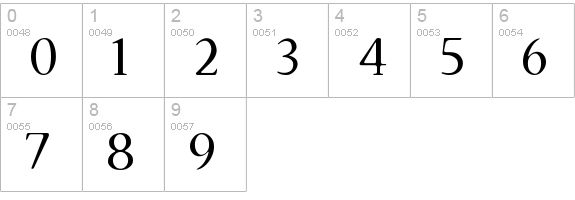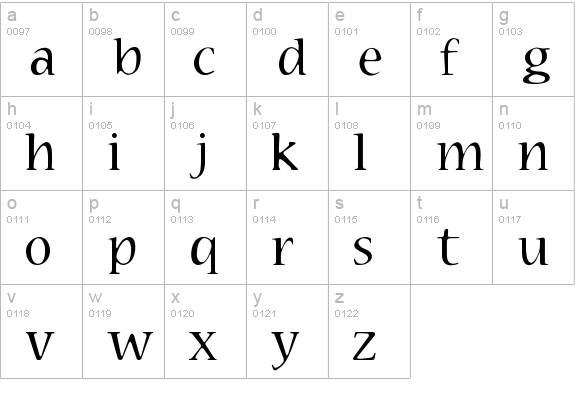
Introducing Technomage, a remarkable font that seamlessly blends the futuristic allure of technology with the enchantment of magic. This one-of-a-kind typeface brings forth a captivating fusion of sleek, modern lines and intricate mystical elements, making it a true masterpiece in the world of typography. Technomage effortlessly captures the essence of a digital era where science and sorcery intertwine, creating a visual experience that is both captivating and awe-inspiring. Its bold and distinctive letterforms evoke a sense of power and innovation, while the subtle curves and intricate details add a touch of enchantment and mystery. This versatile font is perfect for a wide range of creative projects. Whether you're designing a cutting-edge logo, crafting a captivating headline, or developing an immersive user interface, Technomage will elevate your work to new heights. Its unique blend of modern aesthetics and magical charm will leave a lasting impression on your audience. What sets Technomage apart is not only its stunning design but also its accessibility. We believe that great design should be available to all, which is why Technomage is freely available to download at FontsMarket.com. This means that you can unleash the power of this extraordinary font without any restrictions or limitations. With Technomage, creativity knows no bounds. So, step into a world where technology and magic coexist harmoniously with Technomage. Let this font be your guide as you embark on a journey of creativity and innovation. Download it today from FontsMarket.com and experience the spellbinding allure of Technomage for yourself.